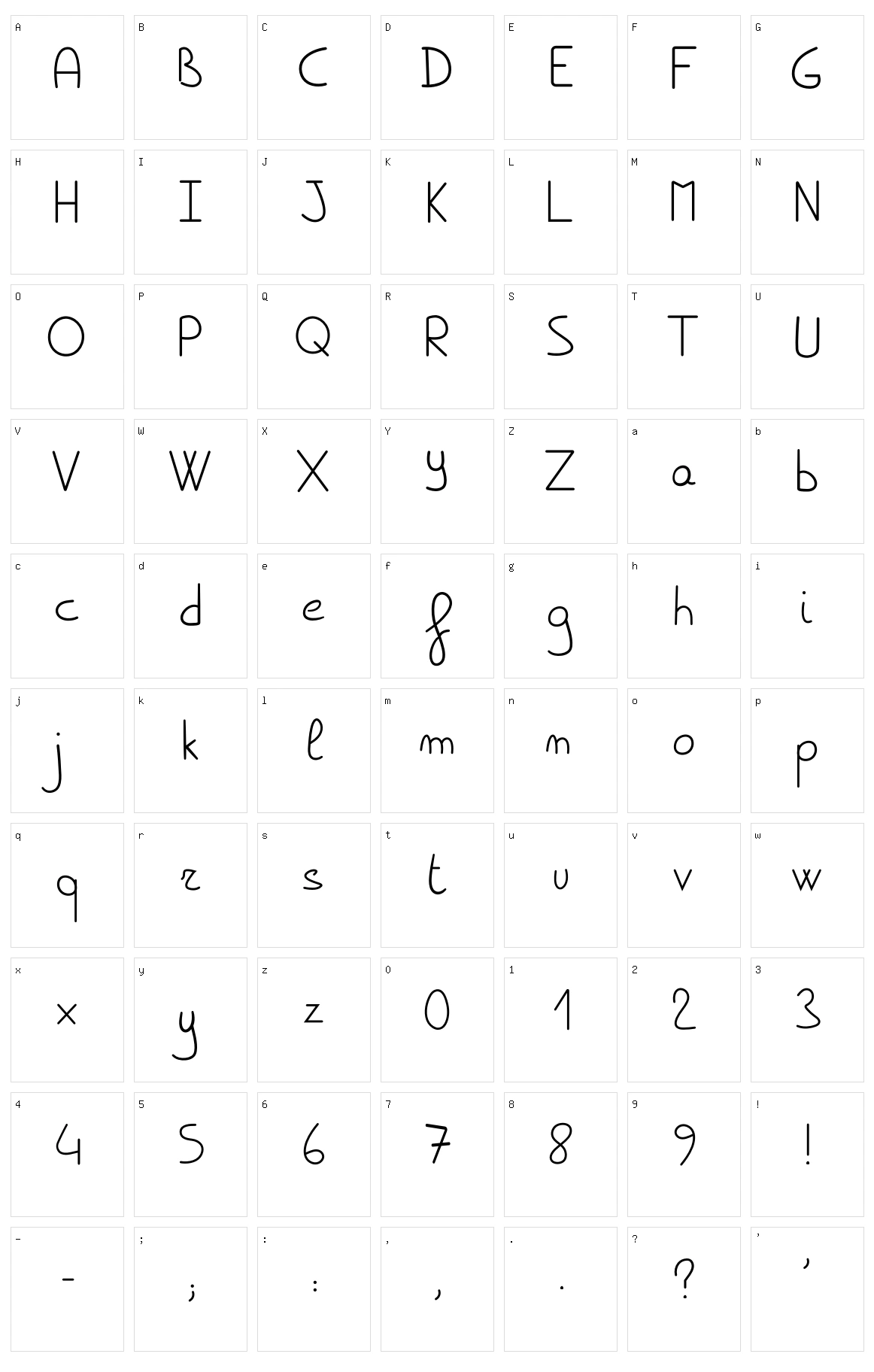
The free font Spark is carefully designed by Gryn Studio, showcasing a thoughtful balance of creativity and usability and falls under the Script font style. When you download the ZIP file, it contains only 447.44 KB of font files, making it lightweight and quick to download. Please review the license details below to understand permitted usage and distribution rights. If license information is not available, we recommend using this font for personal projects only or contacting the author directly for commercial usage permissions.